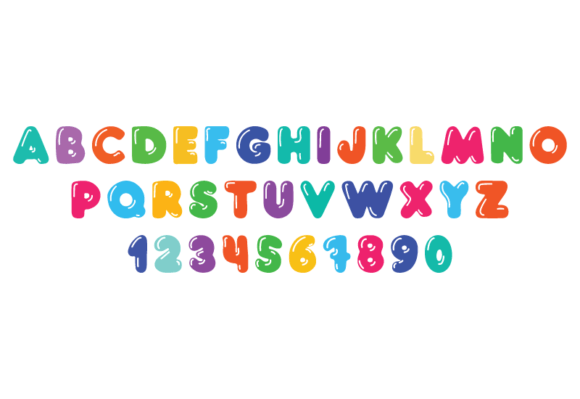
Modern Bubble Font
Unveiling the lively charm of “Modern Bubble” Font, a fascinatingly artful display that perfectly encapsulates the joy and nostalgia of childhood. Cleverly crafted, this animated Modern Bubble font playfully radiates with its charismatic characters. It beautifully emulates the delightful and heartwarming memories of that quintessential children’s handwriting, making any text feel familiar and happy. From its bubbly aesthetics to the lovely subtle nuances of childish scribbles, every stroke of this font injects a sense of playful wonder.